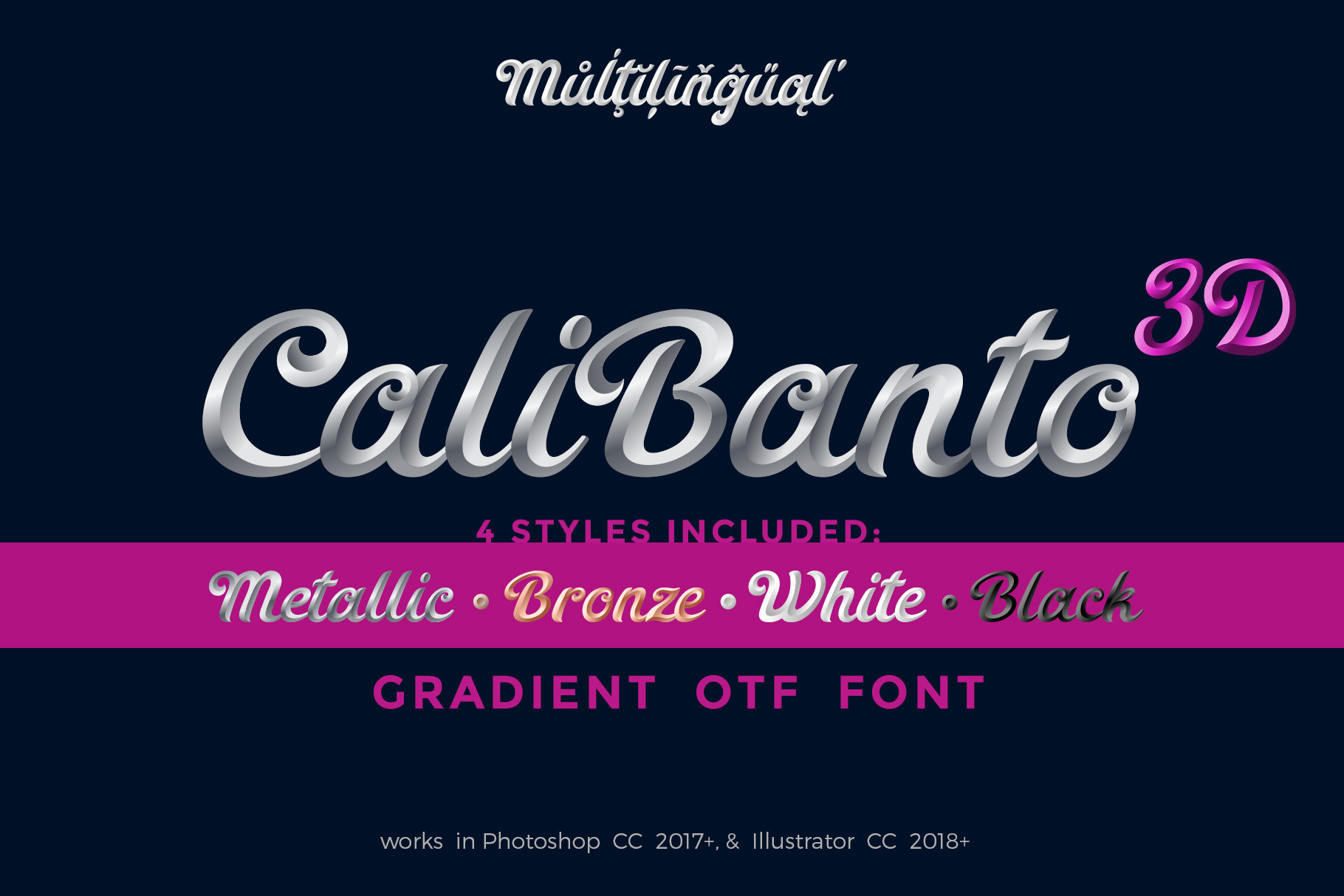
CaliBanto 3D Font
CaliBanto 3D is 3D Beveled Calligraphic Script done in 4 styles (fonts):
- Metallic
- Bronze (Less glossy than Metallic)
- White
- Black (choosing White or Black allow you easily to get needed look in Photoshop with Hue|Saturation/Levels/etc. For example: Bright Yellow (from White) or Dark Red (from Black))
It is interesting looking as Headline and Text both.
It is good for use in:
- Holiday's Greetings
- Calligraphy & Lettering
- Food & Drinks
- Vintage, Fashion, Luxury, Classic, Retro styles
Great for Invitations & greeting cards, Logos, Printed quotes, product packaging, text headers, book cover etc.